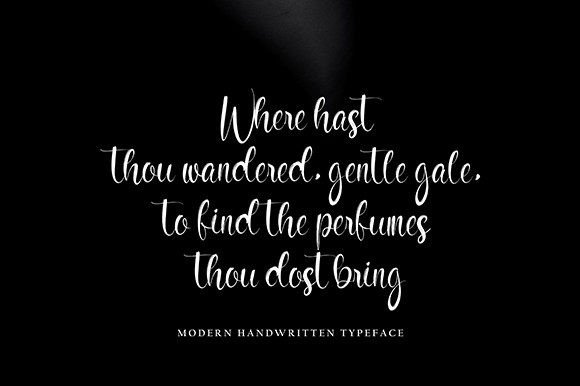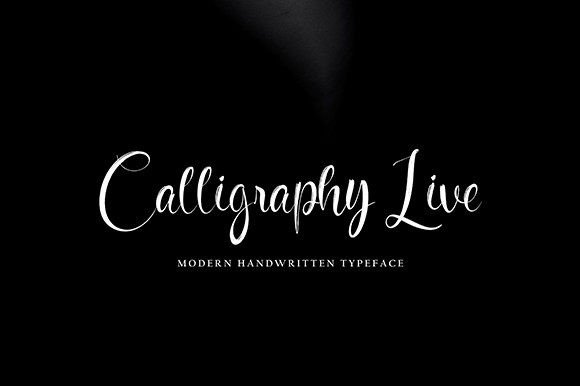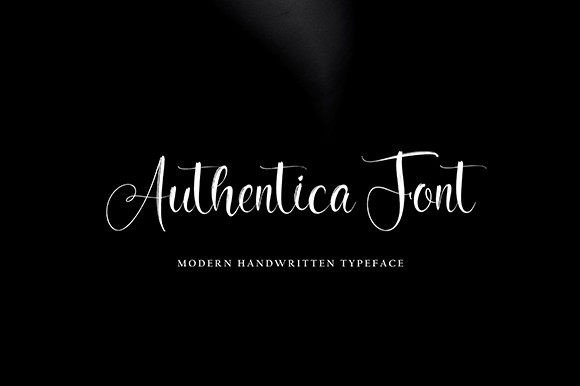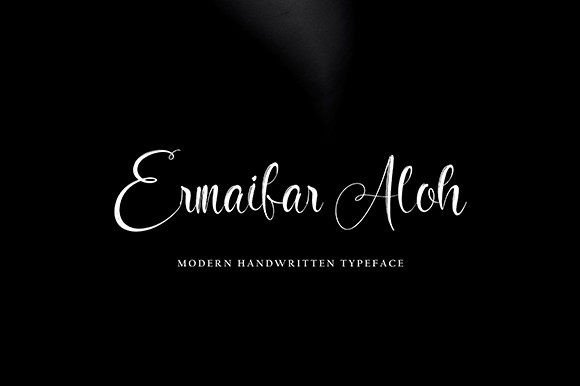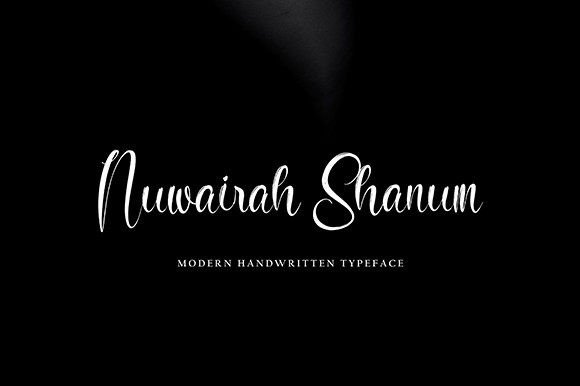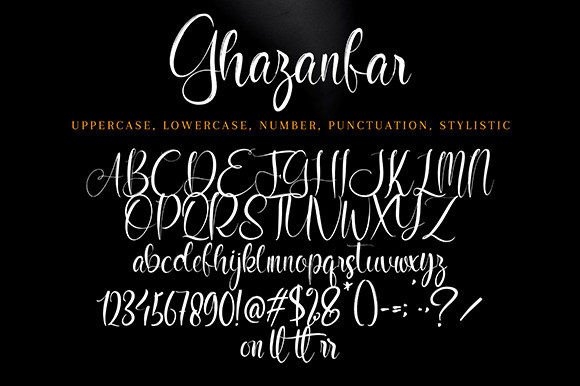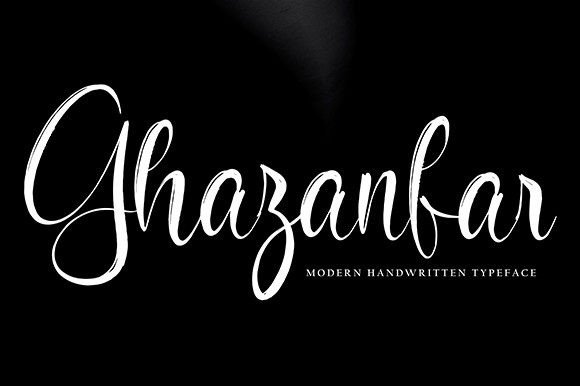
Introducing Ghazanfar Font: A Modern Handwritten Typeface for Creative Designs
In the world of typography, fonts play a crucial role in making designs stand out. For designers and crafters, finding the perfect font can be a daunting task. However, if you’re looking for a modern handwritten typeface that can elevate your designs, look no further than Ghazanfar Font. In this article, we’ll explore the features and benefits of Ghazanfar Font, and how it can be used to create stunning designs.
What is Ghazanfar Font?
Ghazanfar Font is a modern handwritten typeface that has gained popularity among designers and crafters. This font is designed to be versatile and can be used for a variety of design projects, including magazine previews and covers design, logo designs, shirt designs, and other graphic needs. Ghazanfar Font is characterized by its unique and elegant handwritten style, which adds a touch of sophistication to any design.
Key Features of Ghazanfar Font
Ghazanfar Font comes with several key features that make it an ideal choice for designers and crafters. Some of its notable features include:
- Modern Handwritten Style: Ghazanfar Font boasts a modern handwritten style that is both elegant and sophisticated.
- Versatility: This font can be used for a variety of design projects, including magazine previews and covers design, logo designs, shirt designs, and other graphic needs.
- Easy to Read: Ghazanfar Font is designed to be easy to read, making it perfect for body text and headlines.
- Unique Character Set: Ghazanfar Font comes with a unique character set that includes uppercase and lowercase letters, numbers, and special characters.
Benefits of Using Ghazanfar Font
Using Ghazanfar Font can bring several benefits to your designs. Some of the benefits include:
- Enhanced Visual Appeal: Ghazanfar Font can add a touch of elegance and sophistication to your designs, making them more visually appealing.
- Increased Readability: The font’s easy-to-read design makes it perfect for body text and headlines, ensuring that your message is communicated effectively.
- Versatility: Ghazanfar Font can be used for a variety of design projects, making it a valuable addition to your font library.
- Time-Saving: With Ghazanfar Font, you can create stunning designs quickly and easily, saving you time and effort.
Design Ideas Using Ghazanfar Font
Ghazanfar Font can be used for a variety of design projects. Here are some design ideas to get you started:
- Magazine Previews and Covers Design: Use Ghazanfar Font to create eye-catching magazine previews and covers that grab attention.
- Logo Designs: Create stunning logos using Ghazanfar Font that reflect your brand’s personality and values.
- Shirt Designs: Design unique and stylish shirts using Ghazanfar Font that make a statement.
- Graphic Needs: Use Ghazanfar Font for other graphic needs, such as brochures, flyers, and posters.
In conclusion, Ghazanfar Font is a modern handwritten typeface that can elevate your designs. With its unique and elegant style, versatility, and ease of use, Ghazanfar Font is an ideal choice for designers and crafters. Whether you’re designing magazine previews and covers, logos, shirts, or other graphic needs, Ghazanfar Font is sure to impress. So why wait? Download Ghazanfar Font today and take your designs to the next level!